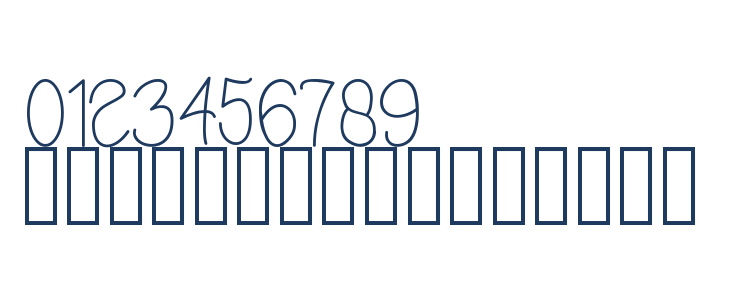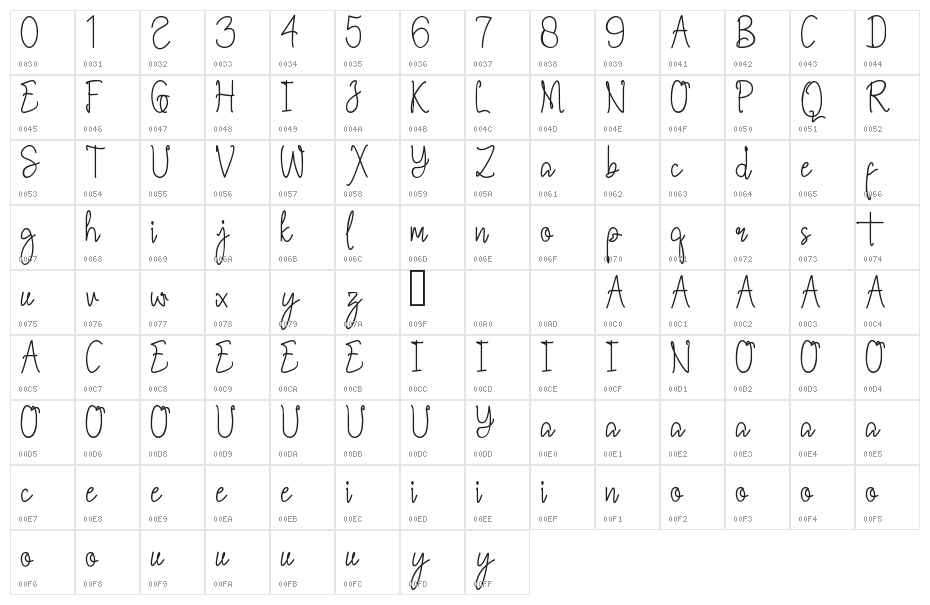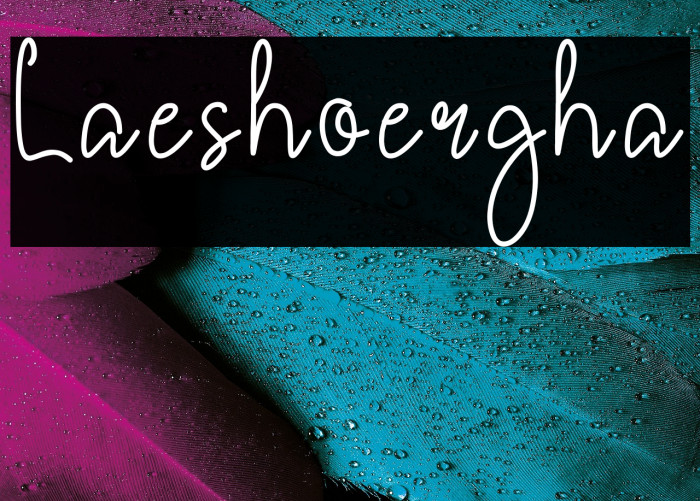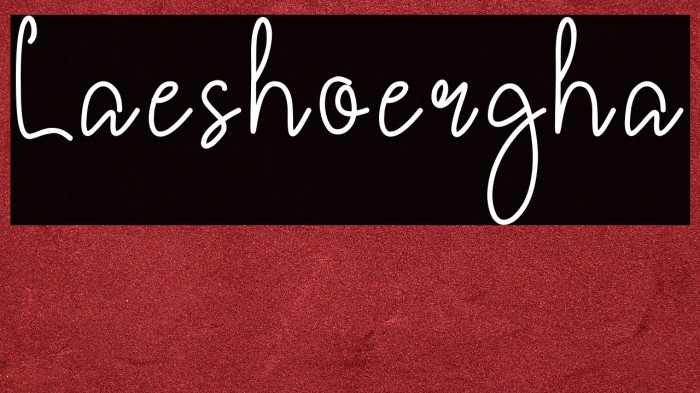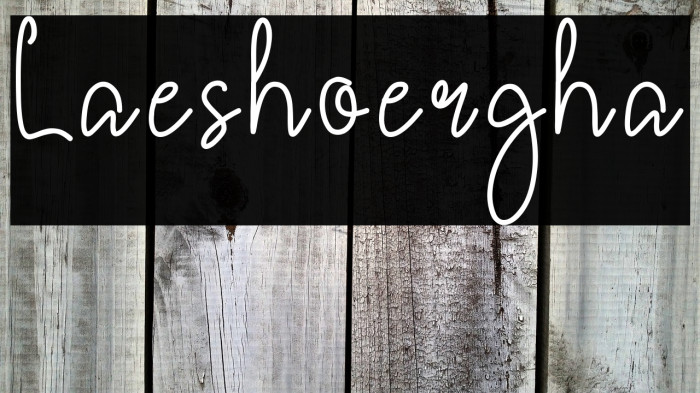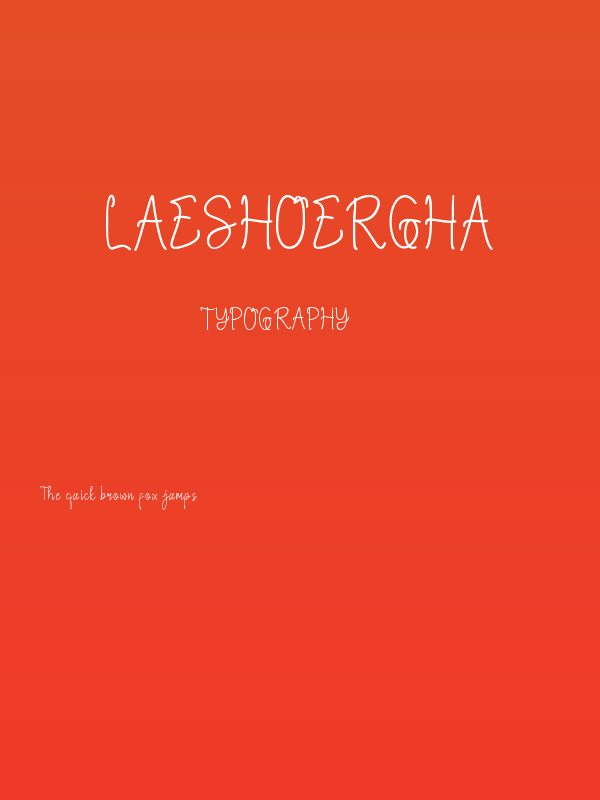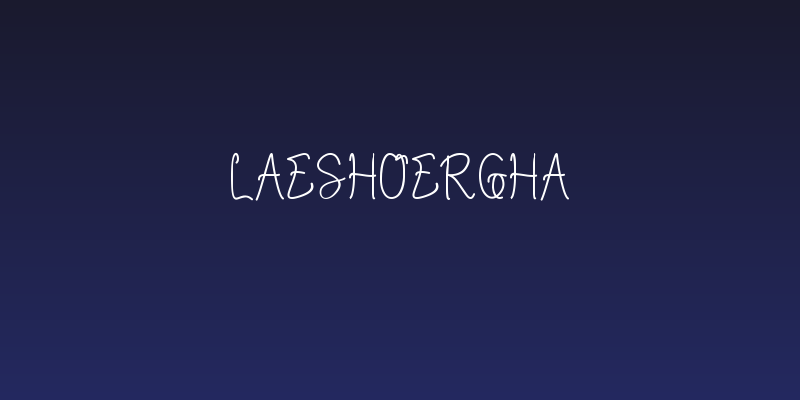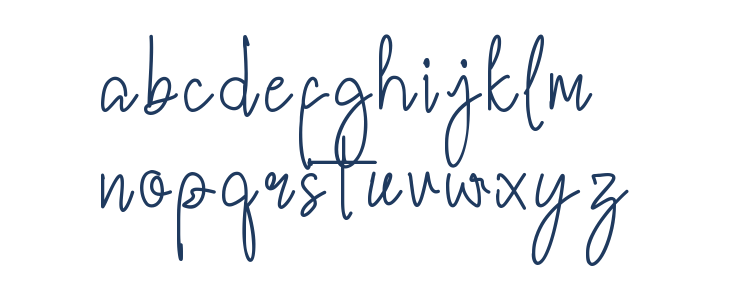
Laeshoergha Font
Laeshoergha Description
This font features a playful and whimsical handwritten style, characterized by its flowing, cursive-like strokes. The letters are elegantly connected, giving it a fluid and dynamic appearance. The uppercase letters are tall and slightly narrow, while the lowercase letters maintain a consistent height, adding to the font's charm. The numbers are rounded and maintain the same playful style, ensuring consistency throughout. Special characters are creatively integrated, matching the overall aesthetic. This font is perfect for projects that require a personal touch, such as invitations, greeting cards, or branding materials.